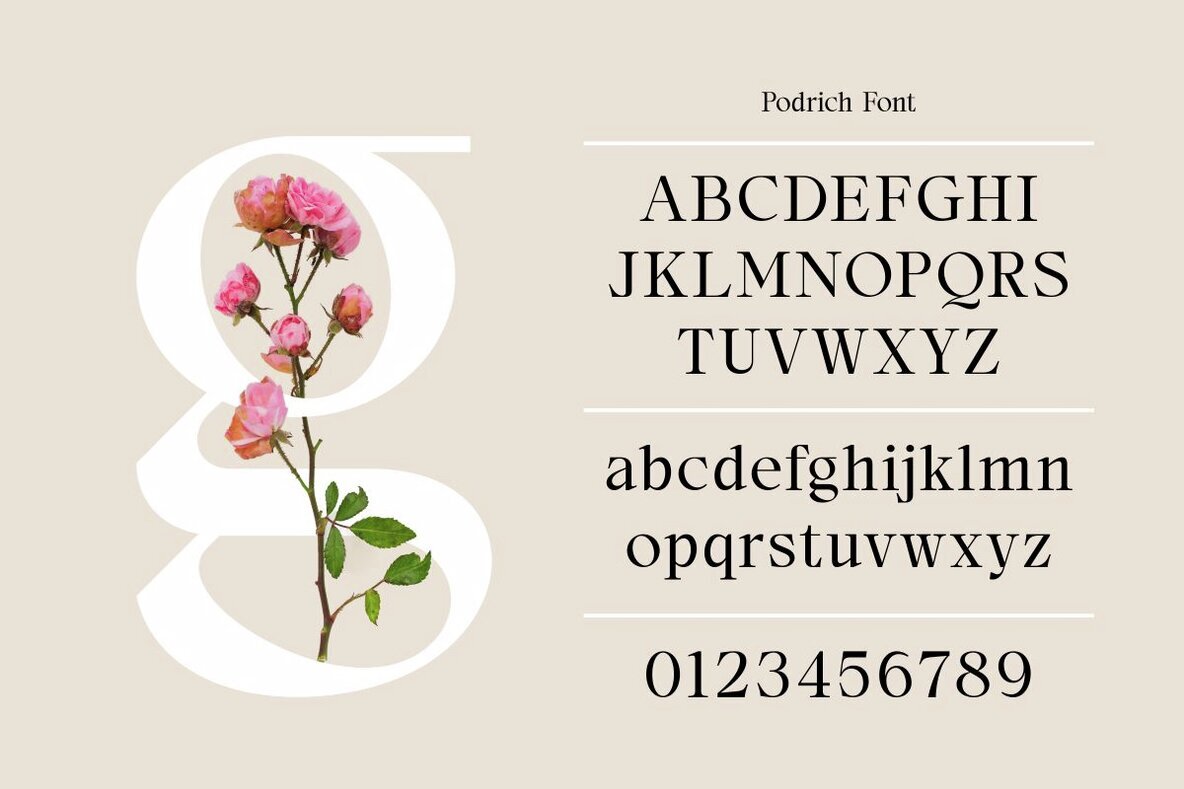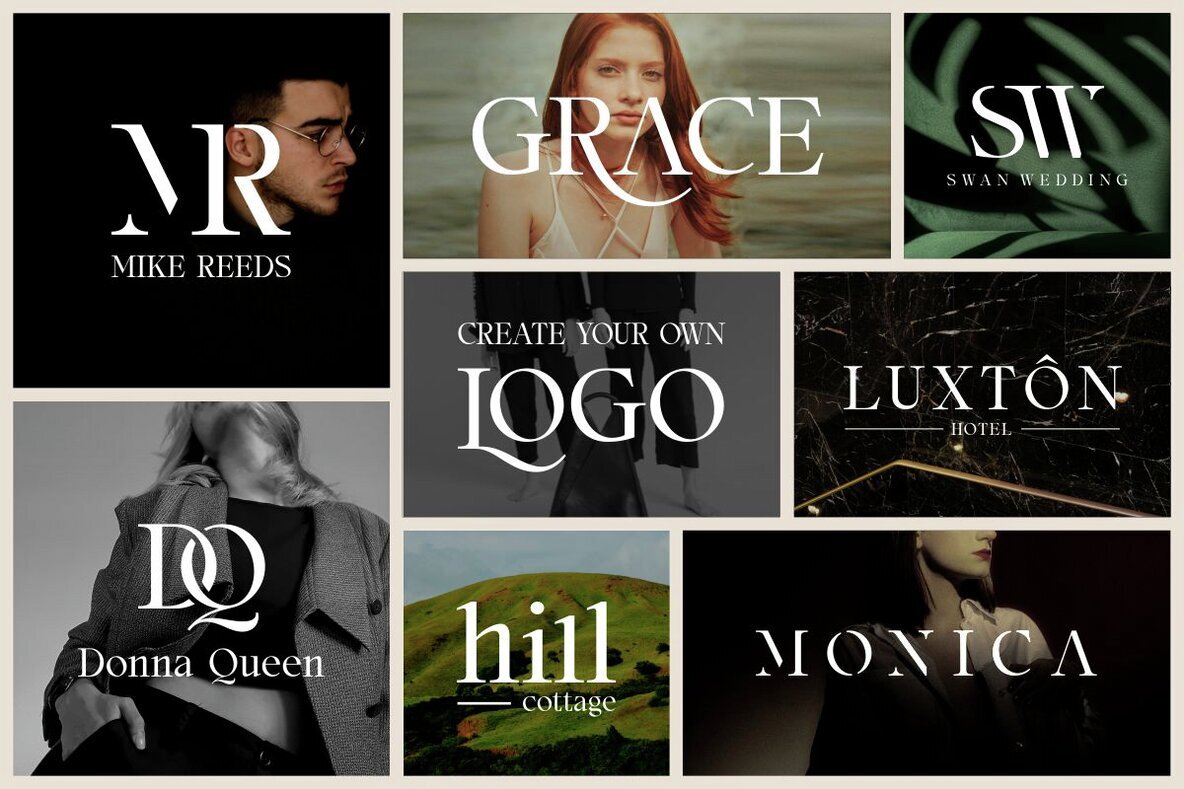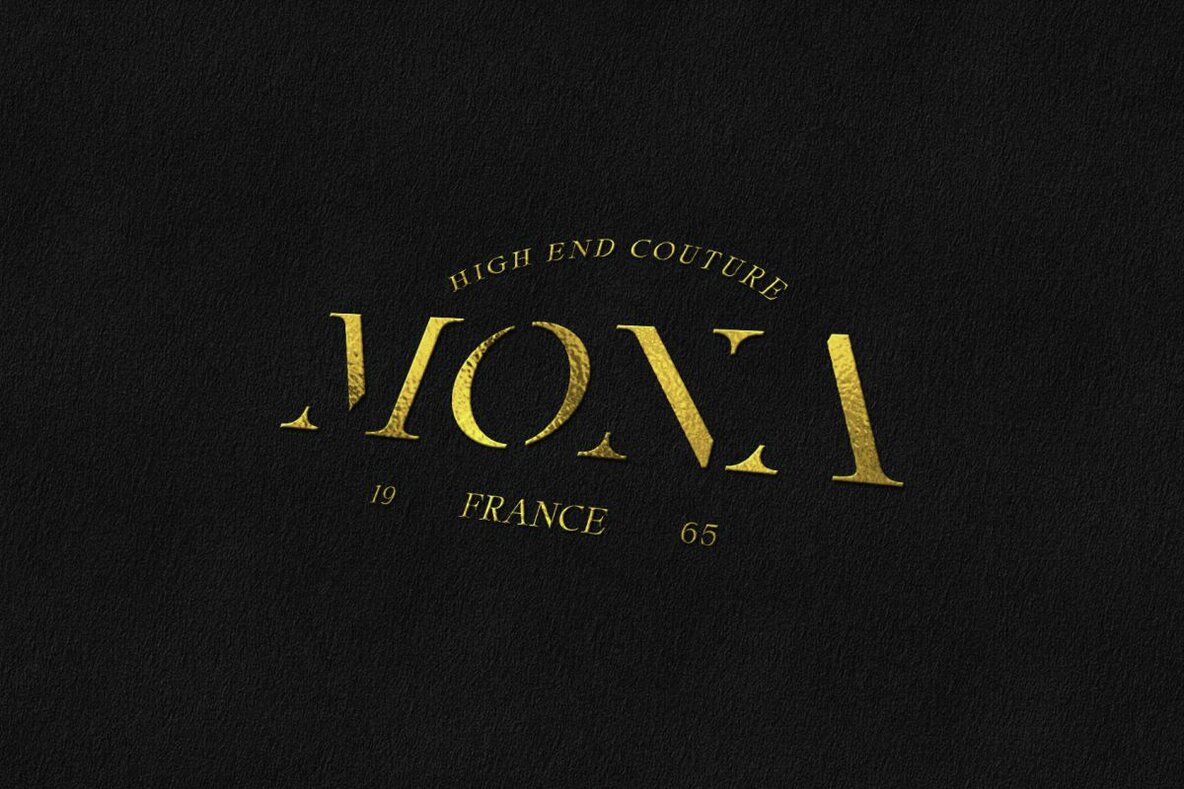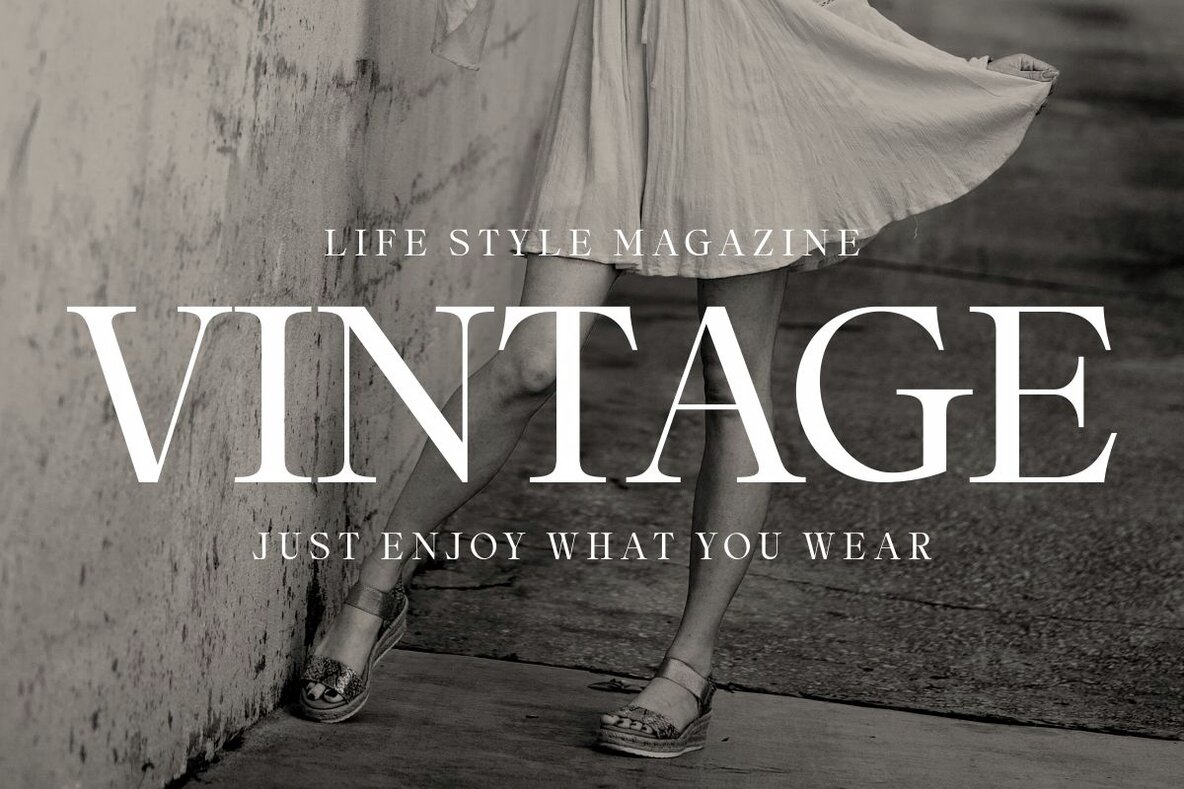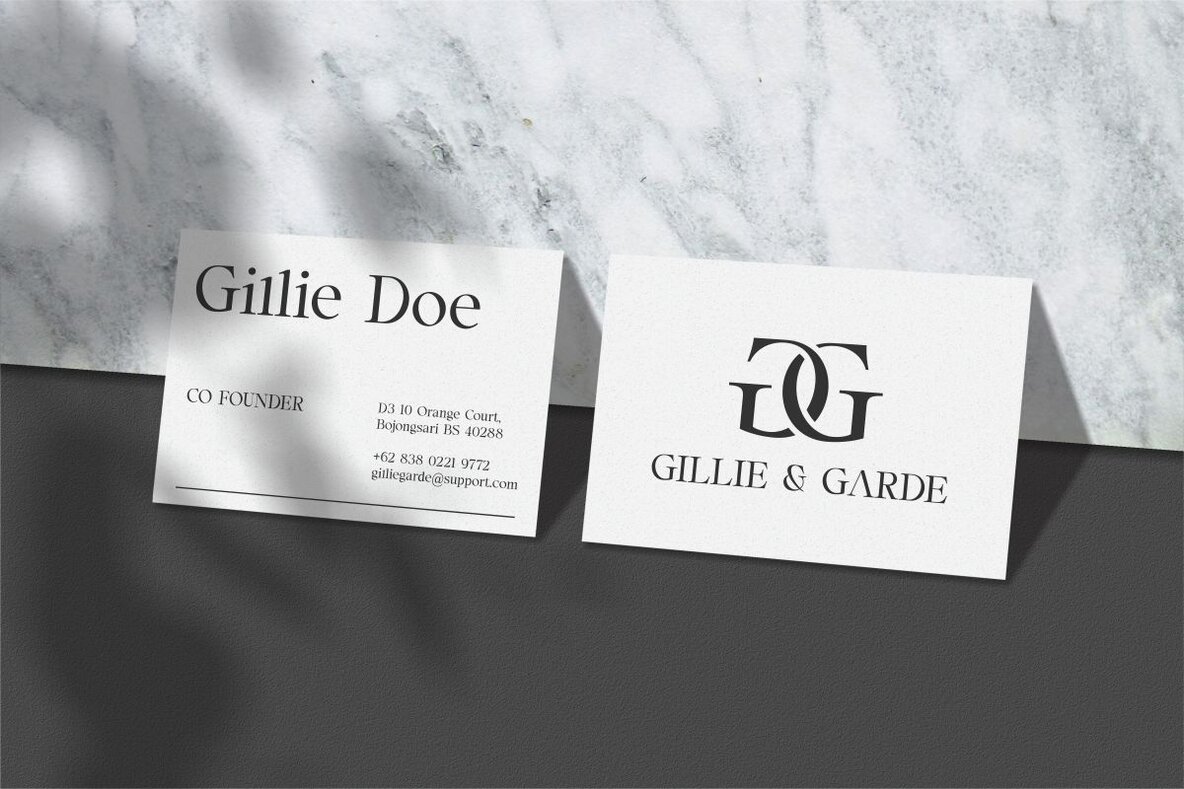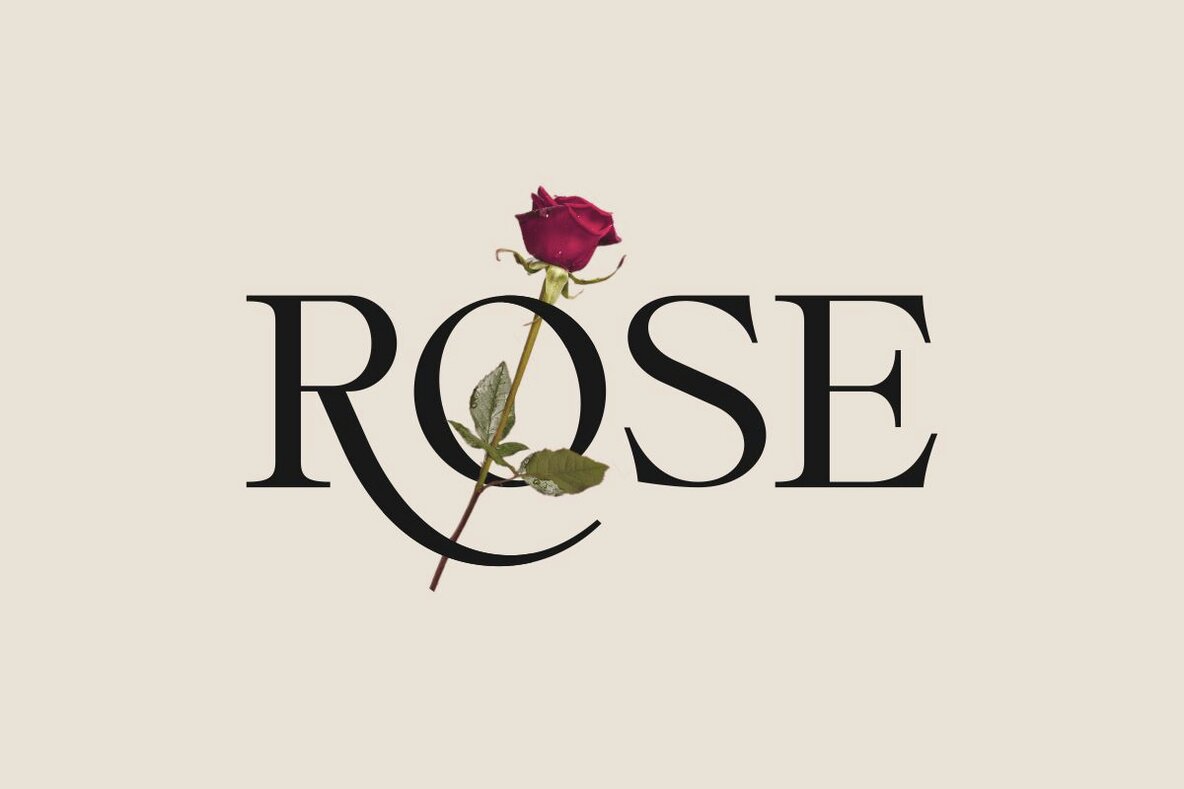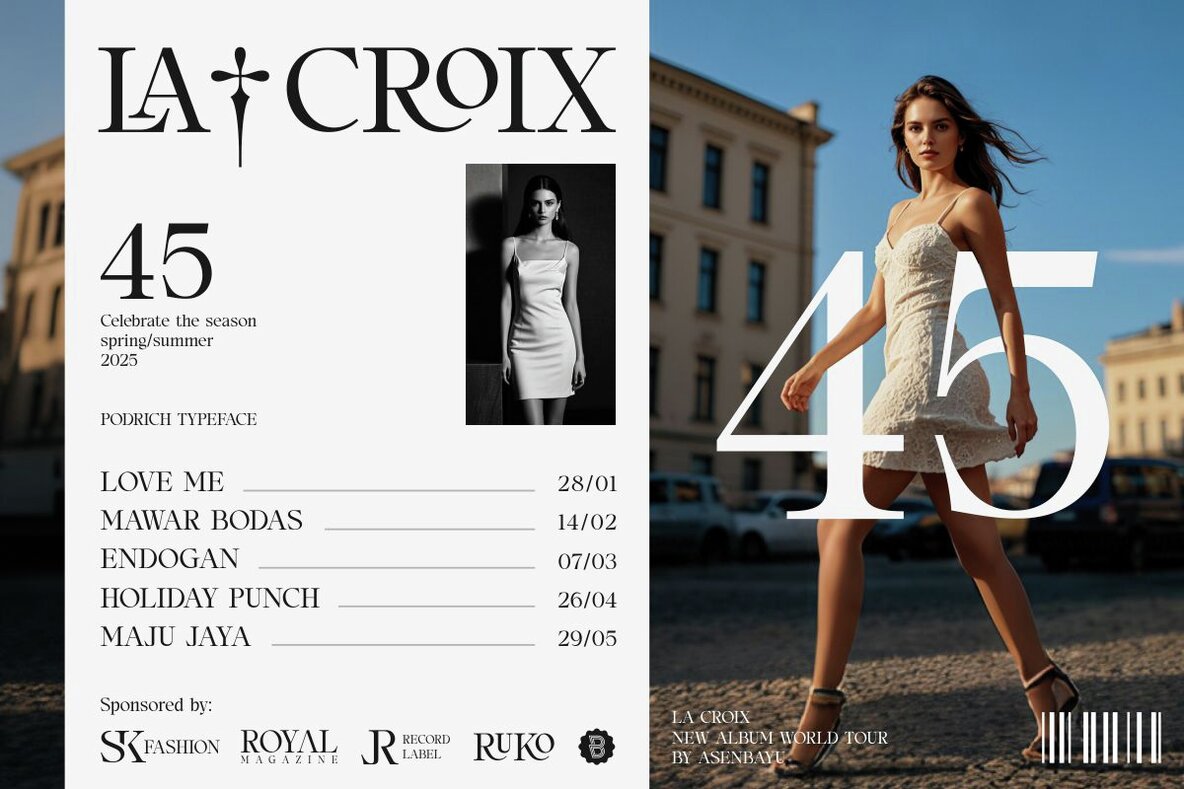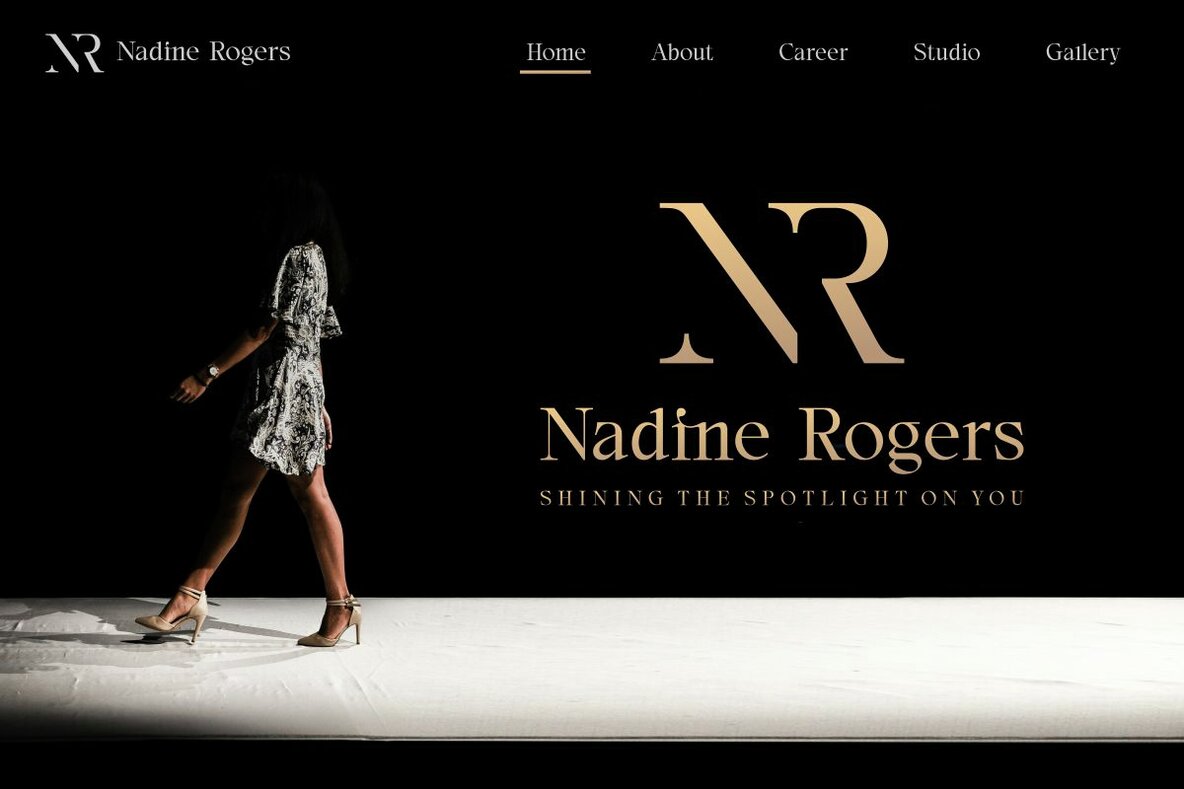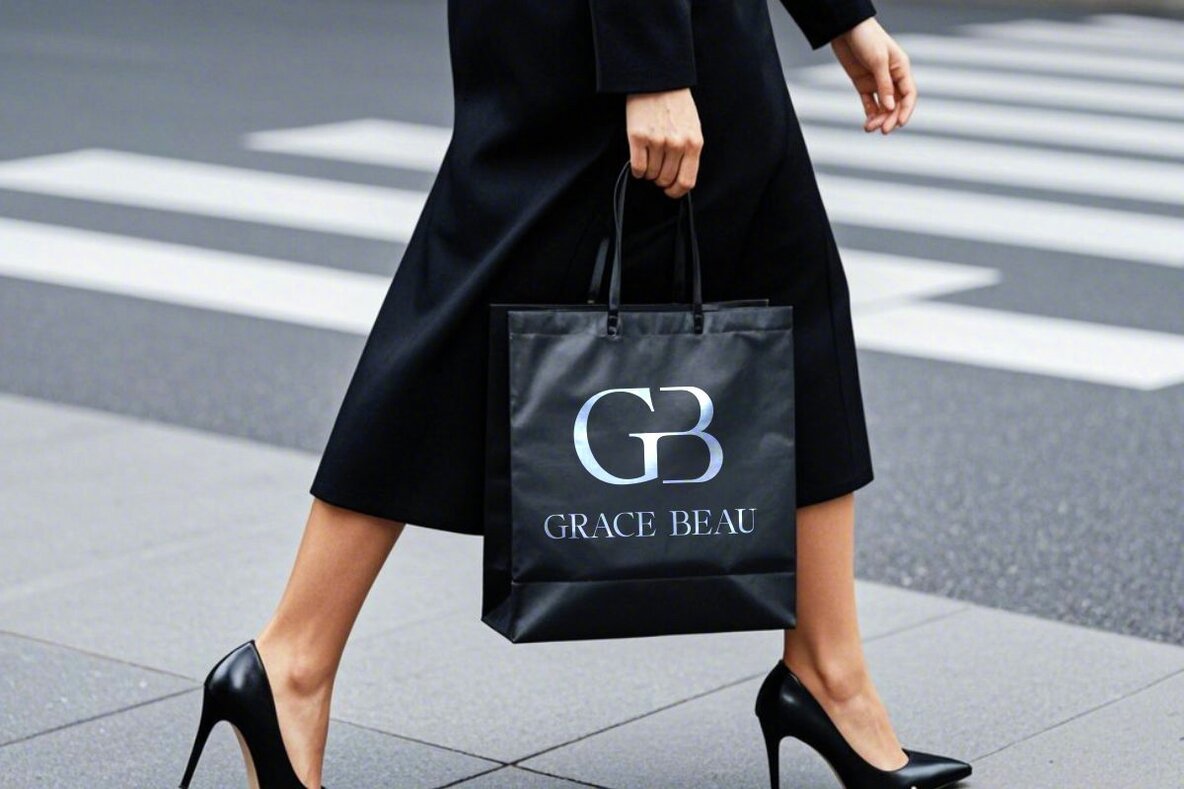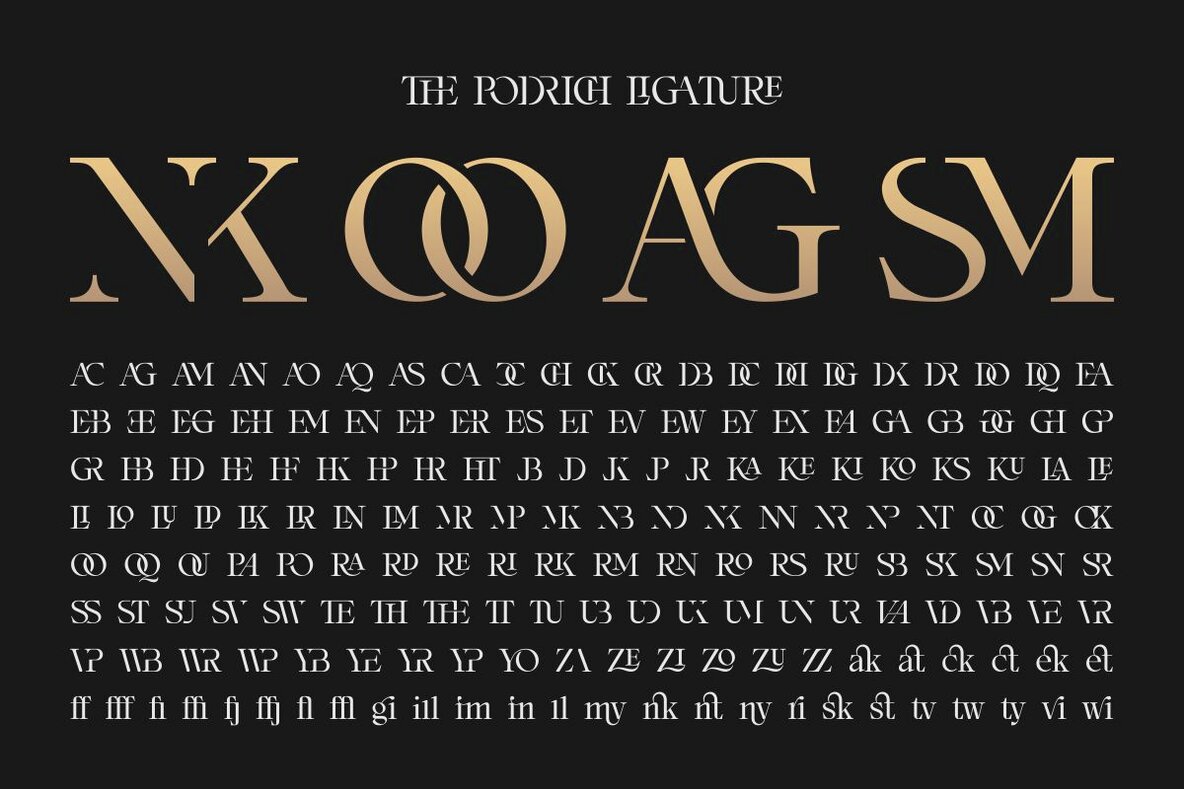
Podrich Font
Podrich
Podrich is a timeless serif logo font that embodies elegance and sophistication. Designed to evoke a classic and luxurious aesthetic, Podrich features a striking contrast between its thick and thin strokes, enhancing both its legibility and its refined appearance. This font is ideal for creating distinguished logos, stylish poster designs, fashion material, and premium branding as it effortlessly conveys sophistication, heritage, and quality.
Podrich offers a range of typographic features, ensuring versatility for any creative project. It includes standard glyphs, stylistic alternates, and stylistic ligatures, providing ample options to customize and enhance your designs. Additionally, it supports a variety of symbols, punctuation, and multiple languages, making it a comprehensive choice for designers seeking both functionality and style in their work.